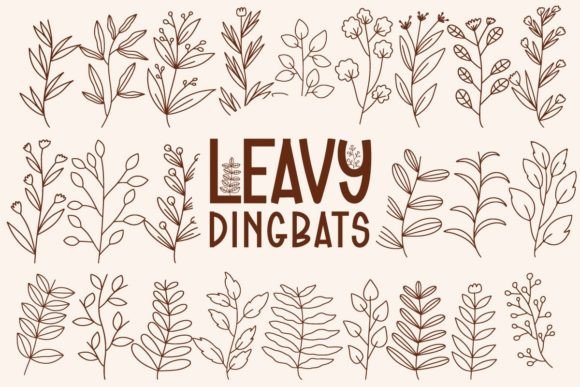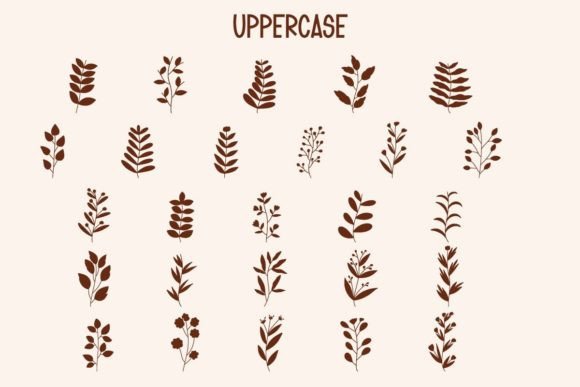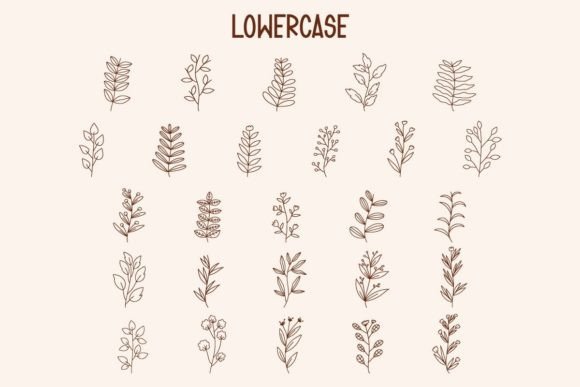
Leavy Font
About Leavy Font
Introducing Leavy, a modern botanical-themed dingbats font that will infuse your creative projects with a touch of elegance and uniqueness! With its delicate and intricate floral glyphs, Leavy offers a wide range of botanical symbols that can be used as dividers or embellishments to enhance your designs.
The floral glyphs in Leavy are perfect for adding a natural and organic feel to your projects. Whether you’re designing invitations, greeting cards, stationery, mugs, or any other creative endeavor, Leavy’s floral elements will bring a sense of beauty and sophistication to your designs.
The versatility of Leavy allows you to use these floral glyphs in various ways. They can be used as decorative dividers between sections of text, adding a stylish and artistic touch to your layouts. Alternatively, you can incorporate them as elegant embellishments, surrounding your text or framing important elements of your design.
Leavy’s modern style ensures that your projects will have a contemporary and fresh look. The delicate lines and intricate details of the floral glyphs make them visually appealing and captivating. Whether you’re creating digital designs or printing your projects, Leavy will add a touch of uniqueness that will set your creations apart.